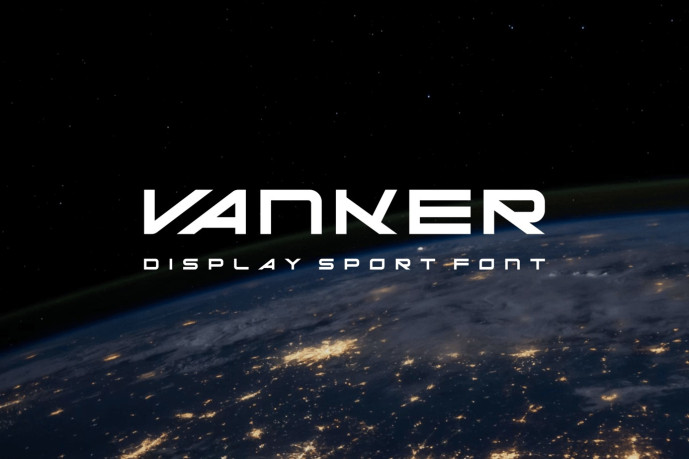
Vanker – Display Sport Font
Designer: ryomiscie
Introducing our new product Vanker – Display Sport Font
Vanker – Display Sport Font is a bold and authentic display font. The font is suitable for any branding project like logo, esport, and many more. outstanding in a wide range of contexts.